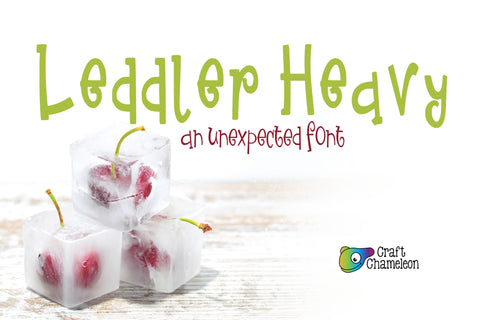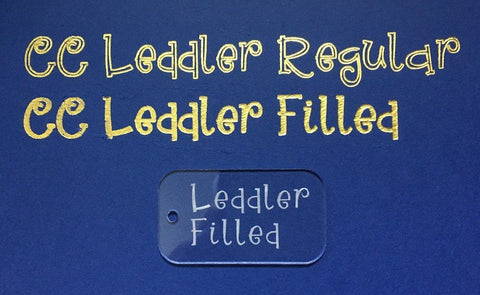
Leddler Font ~ An Unexpected Font
• Leddler Font is a fun and unexpected font for your designing needs. It is $4.99.
The Leddler Filled font was reworked by Clever Someday to create filled letters for foiling, engraving or etching with all brands of digital die-cutting machines. We are proud to offer this file for free of charge as one of our permanent free items.